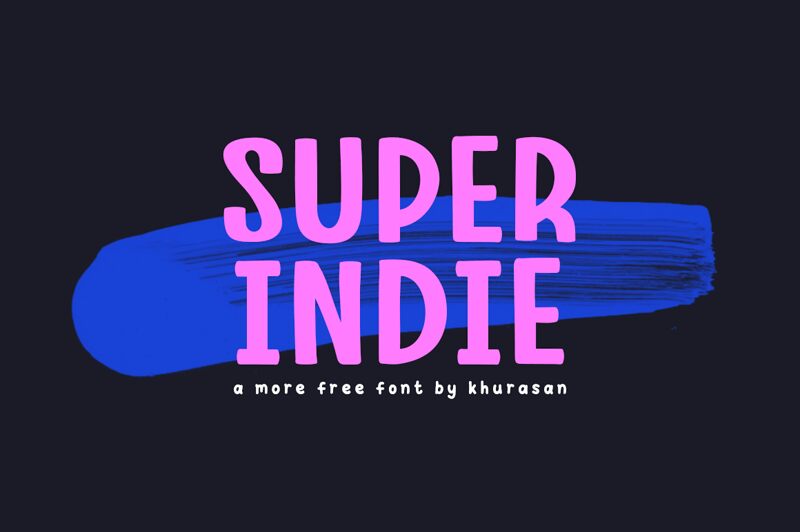
Super Indie
Super Indie, a bold and vibrant display font by renowned designer Khurasan, brings your creative projects to life. With its playful and whimsical cartoon style, this font is perfect for children's books, animated videos, and game designs. The bold weight ensures maximum impact and readability, making it a great choice for attention-grabbing headlines on posters or banners. Let Super Indie inject a dose of fun into your next project with its unique blend of personality and charm. Stand out from the crowd with this font that guarantees to captivate your audience.